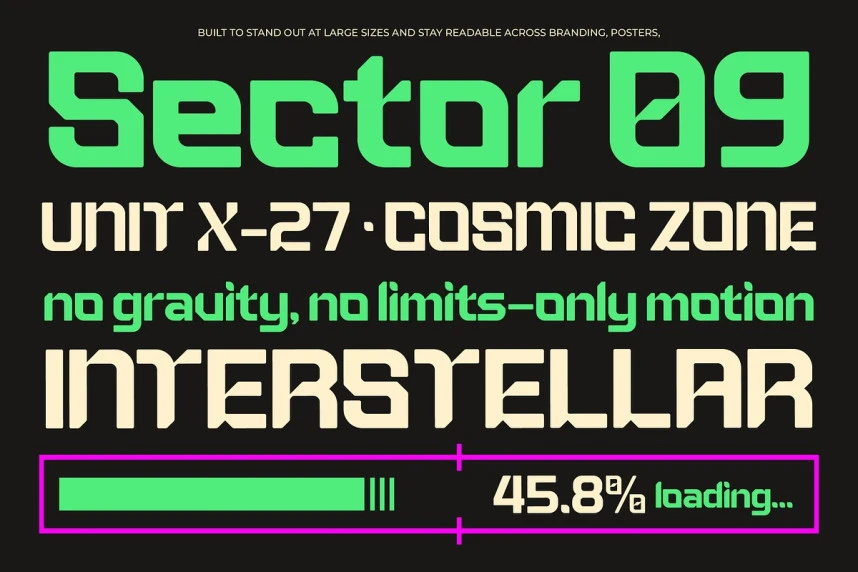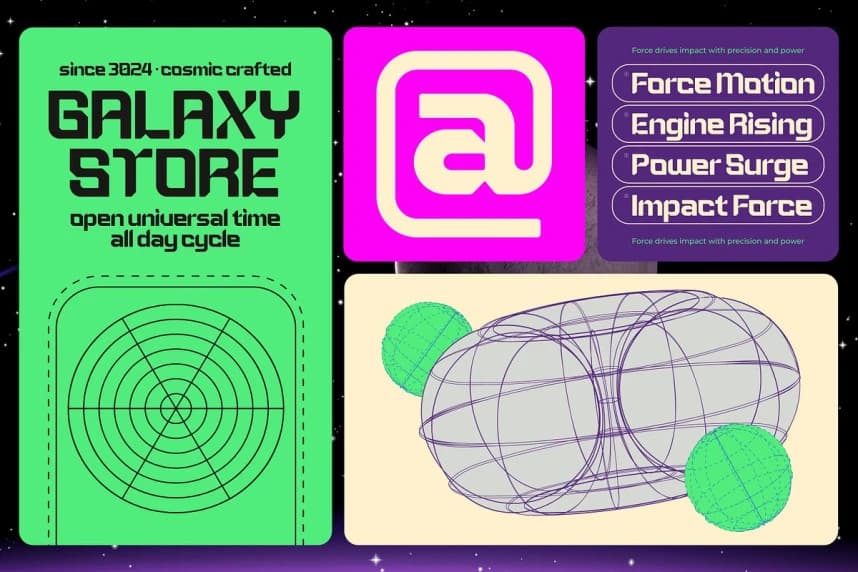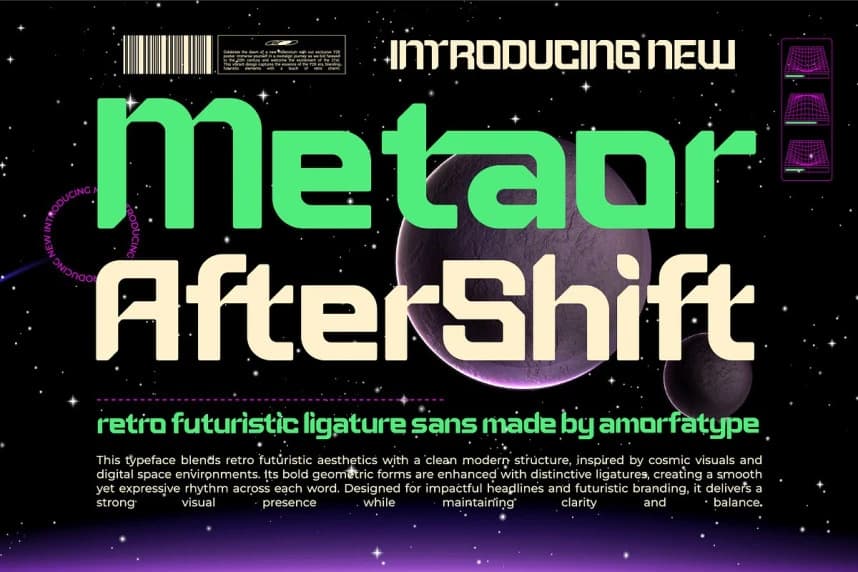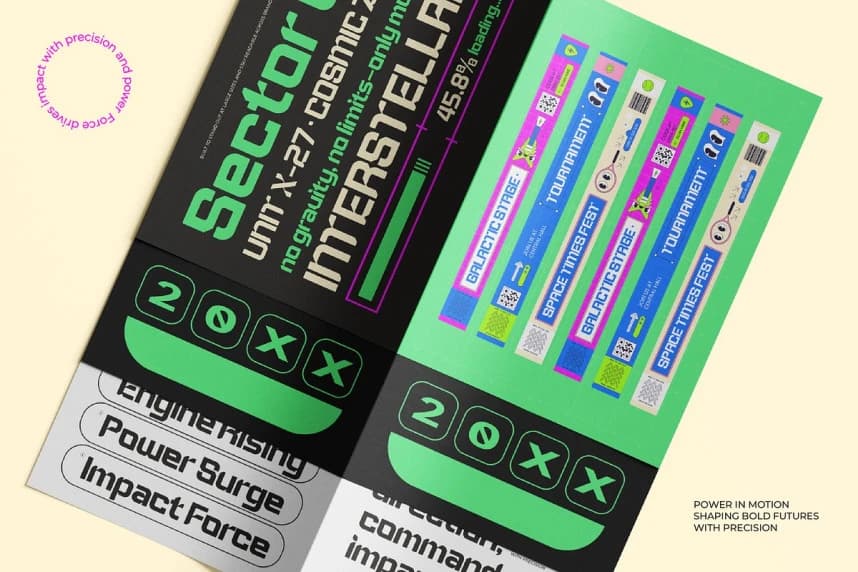
Metaor Aftershift Font is a bold retro futuristic sans serif inspired by sci-fi visuals, cyberpunk aesthetics, and digital-era design. Built with geometric shapes, sharp edges, and a strong modular structure, it delivers a striking and modern display look.